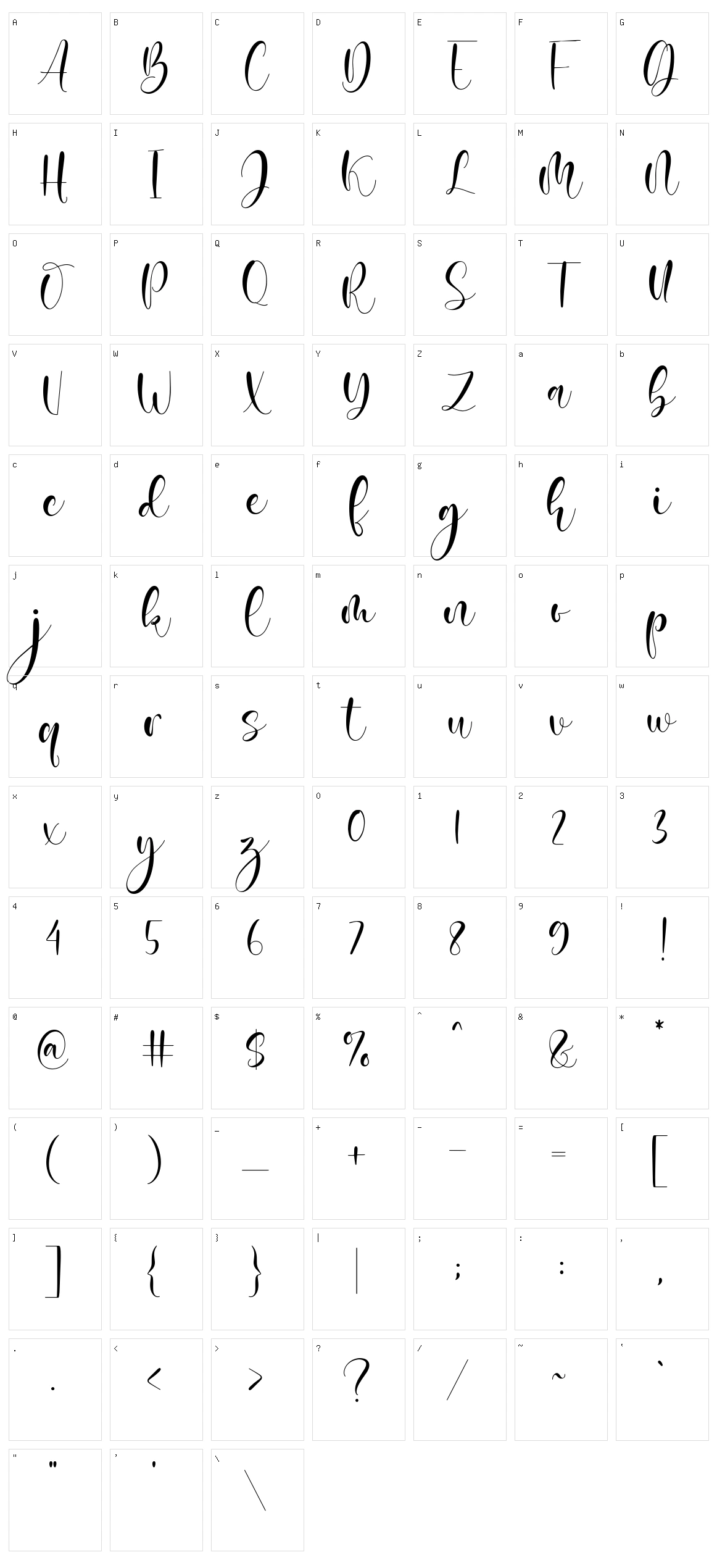
The free font Juliette Michel is carefully designed by Asd Studio, showcasing a thoughtful balance of creativity and usability and falls under the Script font style. When you download the ZIP file, it contains only 309.71 KB of font files, making it lightweight and quick to download. Please review the license details below to understand permitted usage and distribution rights. If license information is not available, we recommend using this font for personal projects only or contacting the author directly for commercial usage permissions.